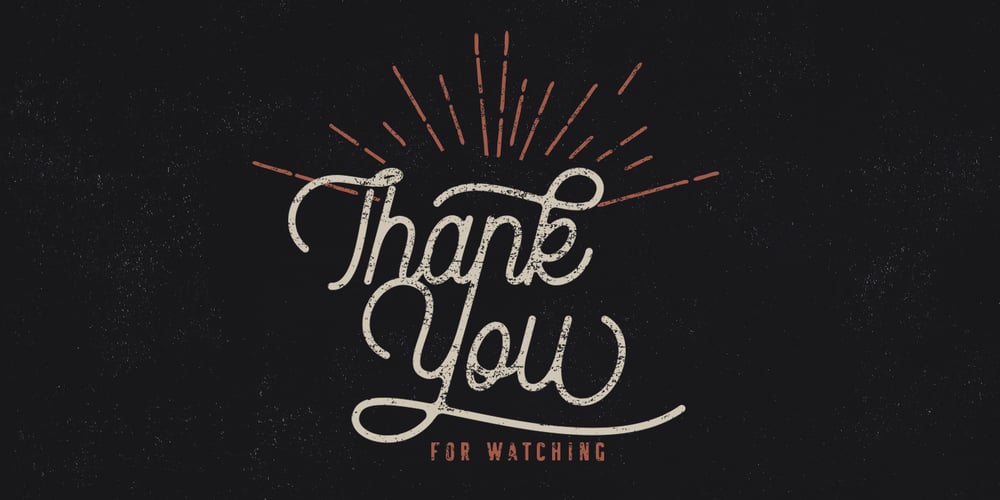
Rampage Monoline Font Family was designed by Rian Rahardi and published by Creatype Studio. Rampage Monoline contains 4 styles and family package options. Rampage Monoline is a beautiful, sweet, vintage monoline font with movement and grace. The script comes in a regular and rounded version. Rampage is elegant and stunning as a display which makes it perfect for branding projects, logos, wedding designs, social media posts, advertisements, product packaging, product designs, labels, photography, watermarks, invitations, stationery and any projects that need handwriting look. Rampage Monoline comes with uppercase, lowercase, numerals, punctuation and many variations on each character, including OpenType alternates and common ligatures to let you customize your designs. SANS SERIF FONT & ROUGH/STAMP EFFECT IS FOR PREVIEW PURPOSE ONLY, IT IS NOT INCLUDED IN MAIN FILE.